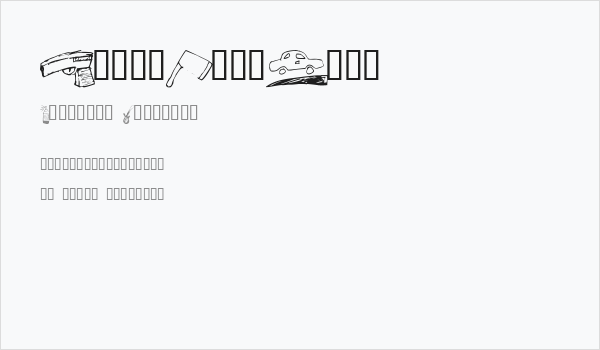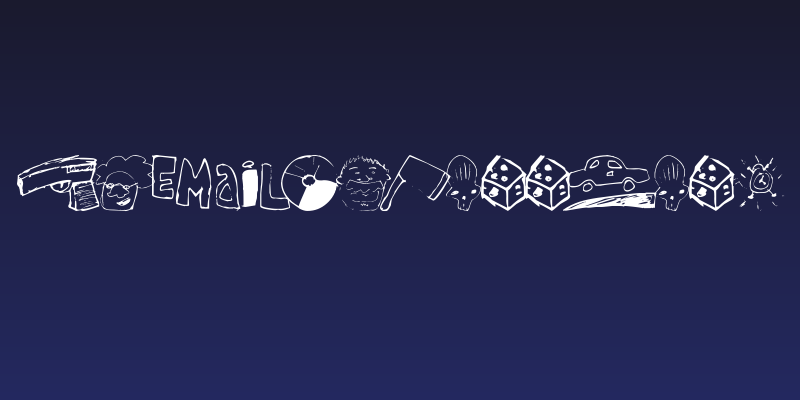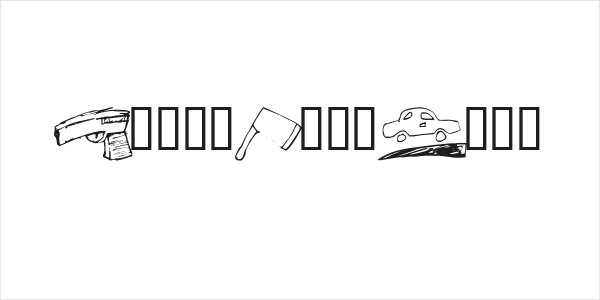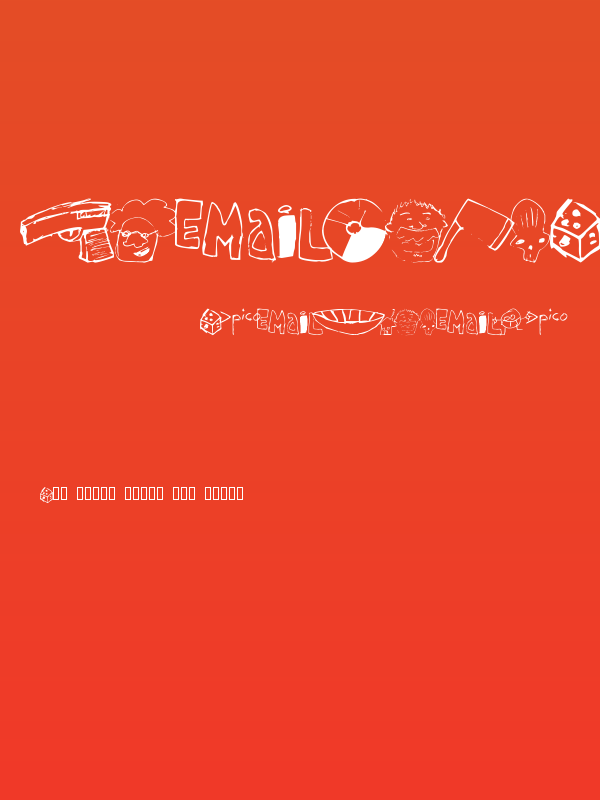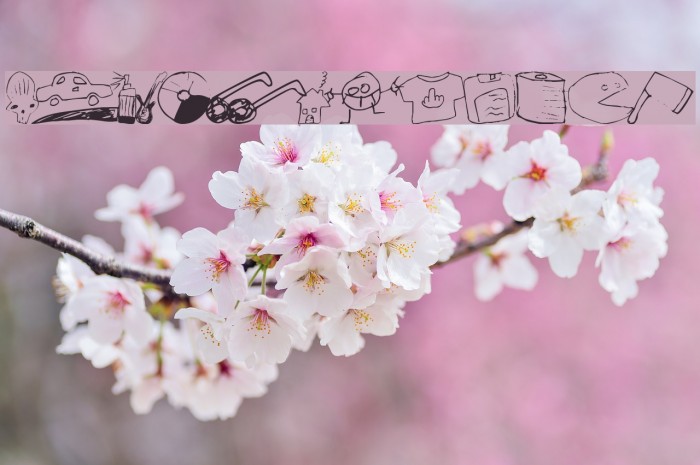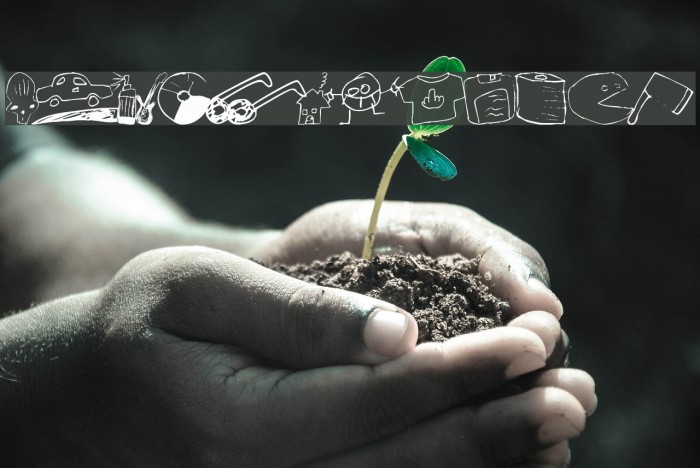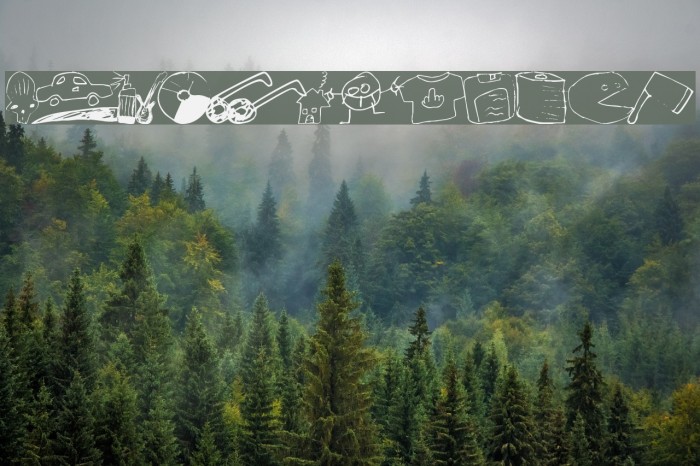
SuperMattBatz Font
SuperMattBatz Description
This font is a playful and whimsical collection of characters, each uniquely illustrated with a variety of doodles and sketches. The letters are not uniform, with each character taking on a different artistic representation, such as a car, a pie chart, or a t-shirt. This creates a highly decorative and eclectic style, perfect for projects that require a fun and informal touch. The font is more of an artistic expression rather than a traditional typeface, making it ideal for creative and unconventional uses.
| Use Case | Logos, Posters, Creative Projects |
| Proposed Projects | Ideal for children's books, playful posters, creative invitations, and artistic projects that require a unique and informal touch. |